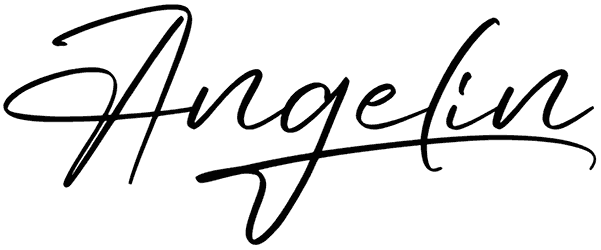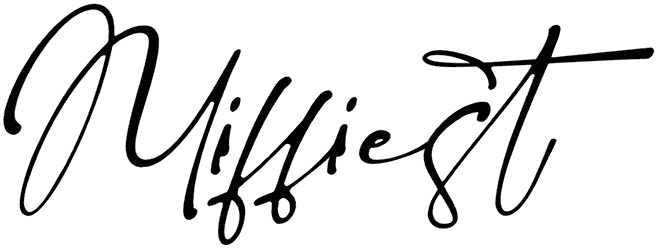
MonoSign Font
Since it has a timeless appearance, it is simple to use this remarkable signature font in a variety of contexts. Use the MonoSign font for signage, invitations, posters, and other creative projects. It has an impact on your designs, giving them a one-of-a-kind and artistic feel. Handwritten fonts can save your design from monotony and make it pleasing to the eye.
Monosign Font By lemonthe